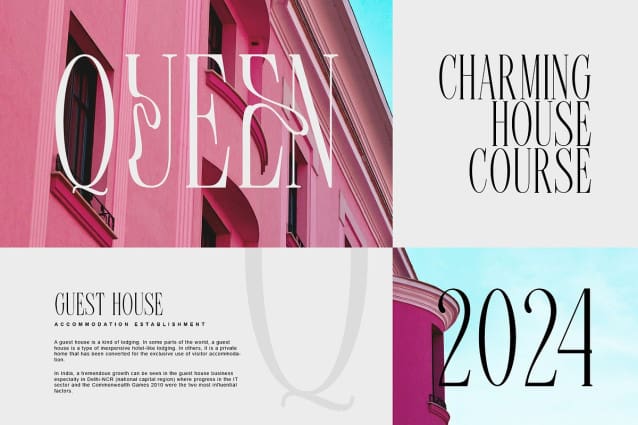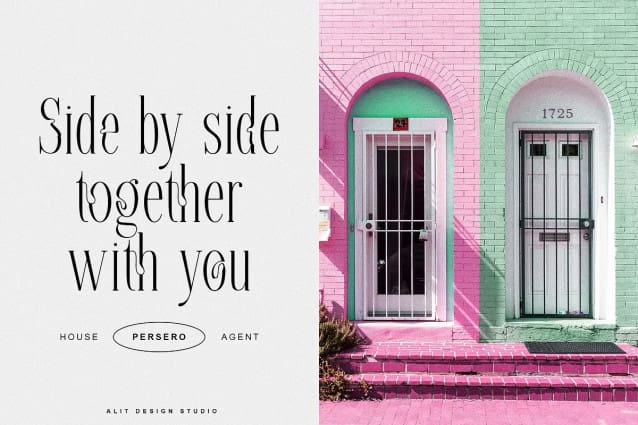
Broema Font
Broema Font, a modern serif that redefines sophistication. Crafted with precision and artistry, Broema stands out with its distinctive letterforms that gracefully sway like ribbons, infusing each character with a sense of fluid motion and elegance.
Key Features:
Unique Ribbon-Like Letterforms: Every letter in Broema Font is designed to captivate. The subtle curves and flowing lines create a ribbon-like effect, adding a touch of movement and grace to your text.
Charming Ligatures: Enhance the beauty of your typography with Broema’s charming ligatures. These carefully crafted connections between letters add a sophisticated flair,